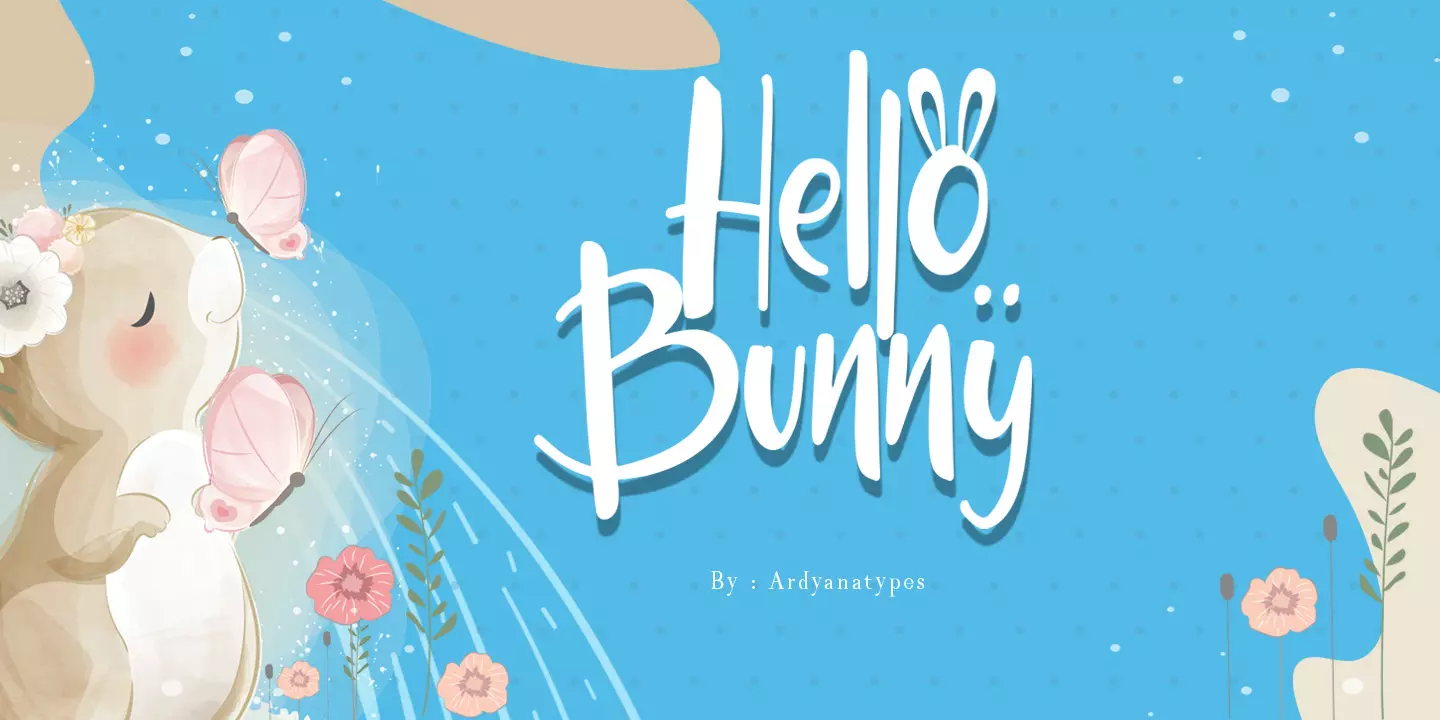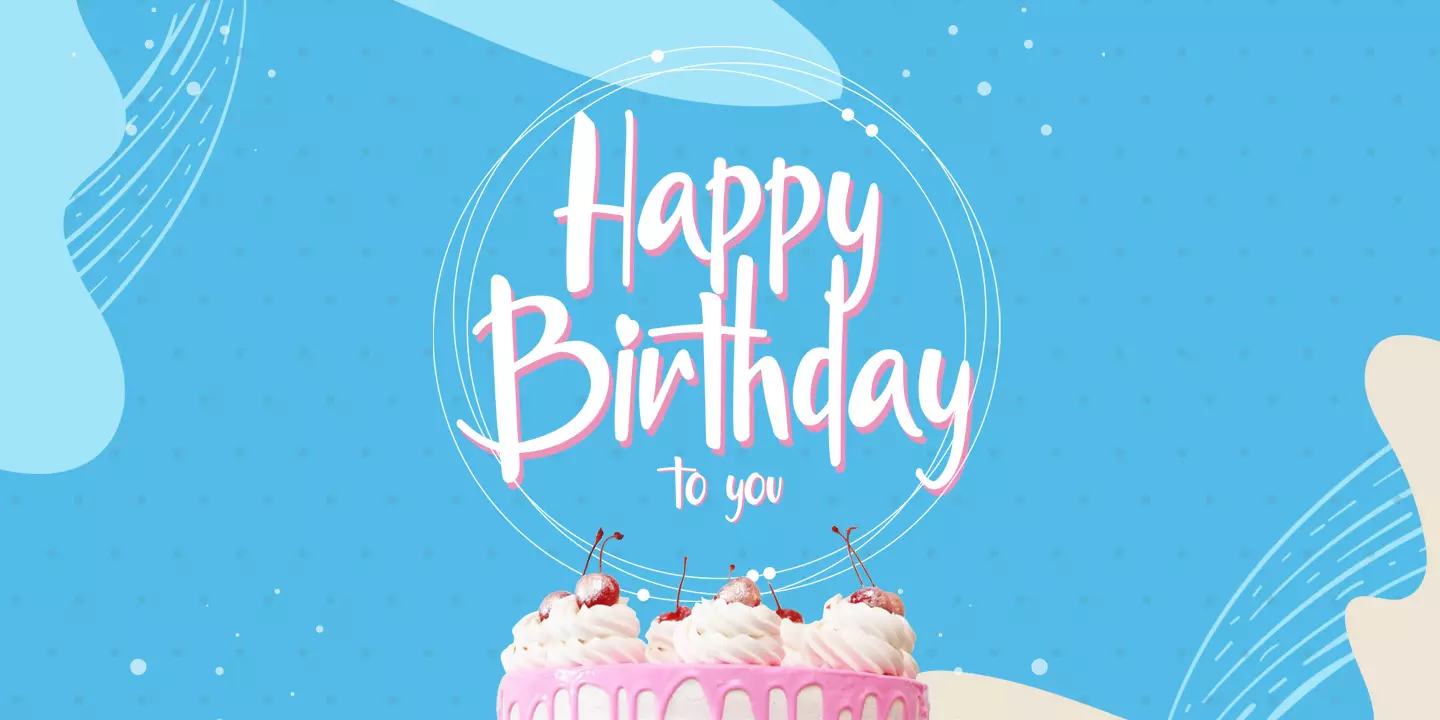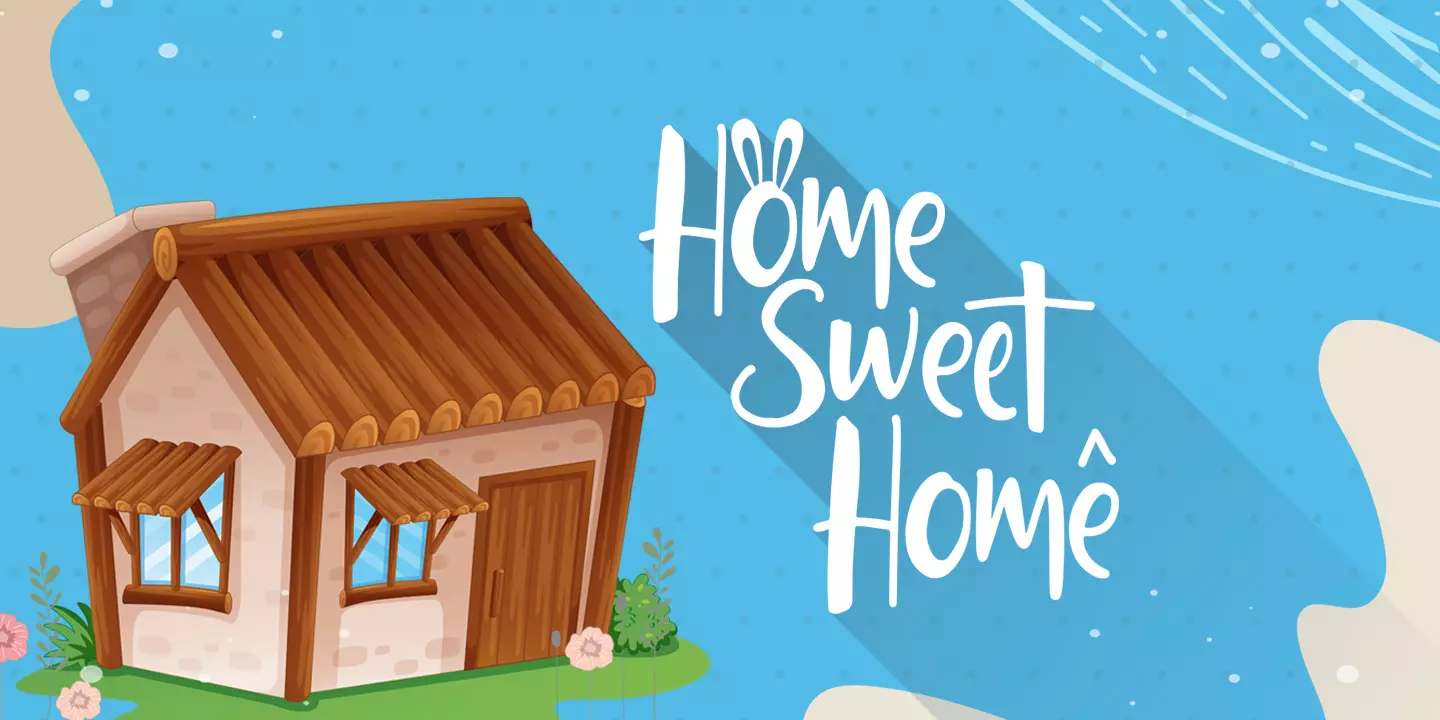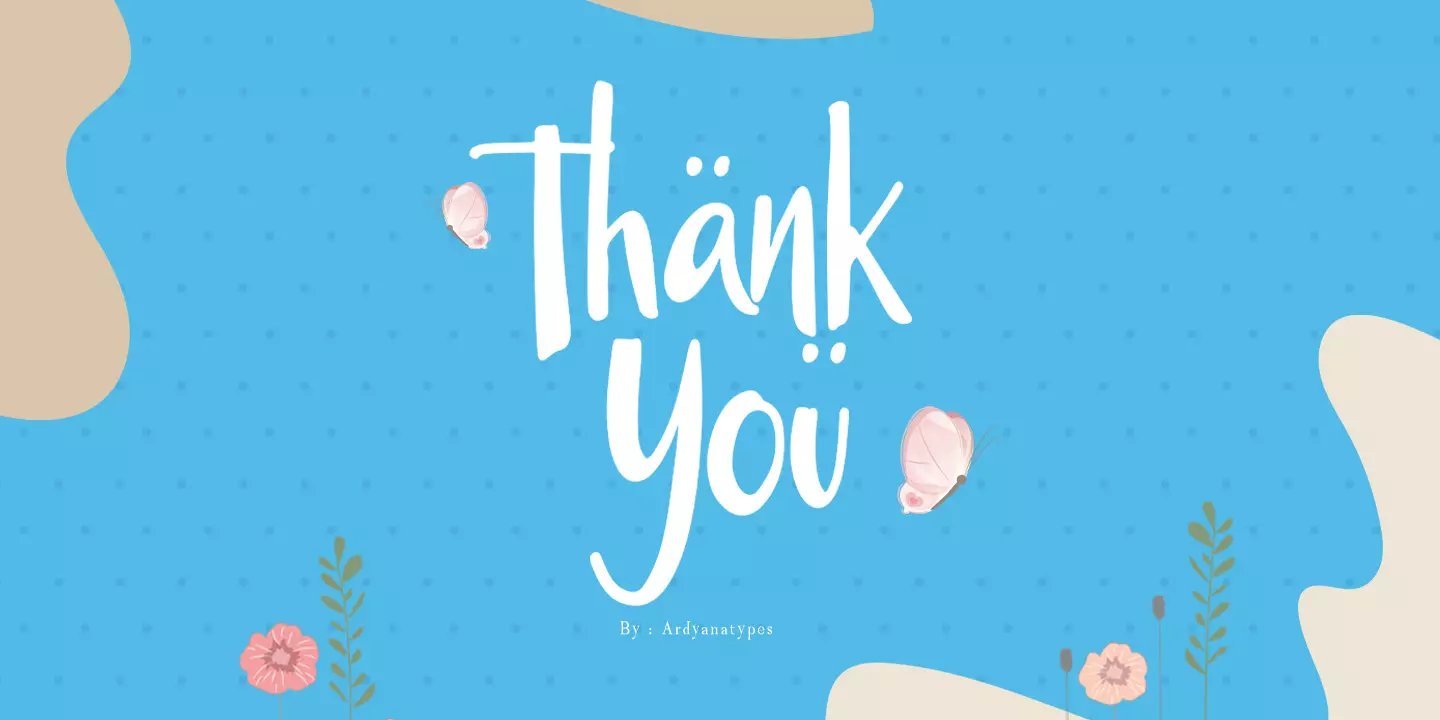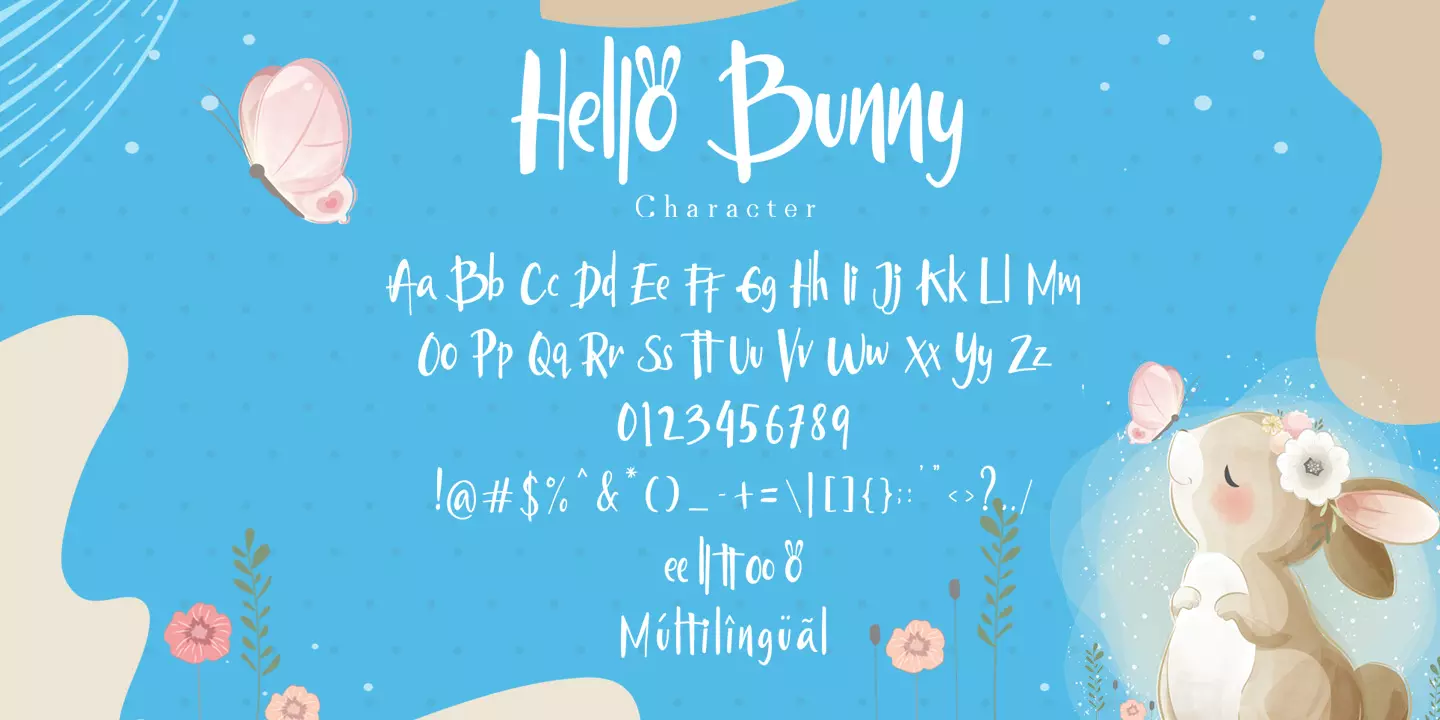
Hello Bunny
Say hello to this cute rabbit, hello bunny is a font that is made very cheerful for everyone,
with a handwriting style that will make all your works look funnier, sweeter and very impressive.
Hello bunny also features multilingual.
Foreign languages support : àáâãäåæçèéêëìíîïðñòóôõöøùúûüýÿ